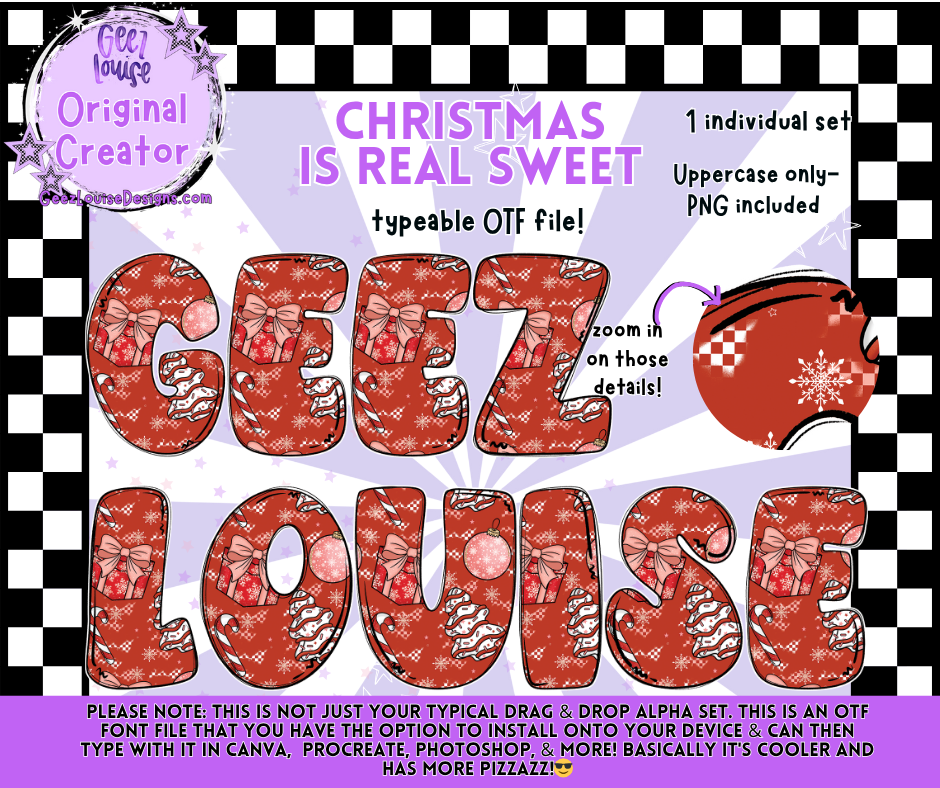
Christmas Is Real Sweet Font & PNG Alpha | Typeable OTF File
Bring cozy holiday vibes to your projects with the Christmas Is Real Sweet font! Featuring festive red patterns, bows, and snowflakes, this font is perfect for adding seasonal charm to all your holiday designs.